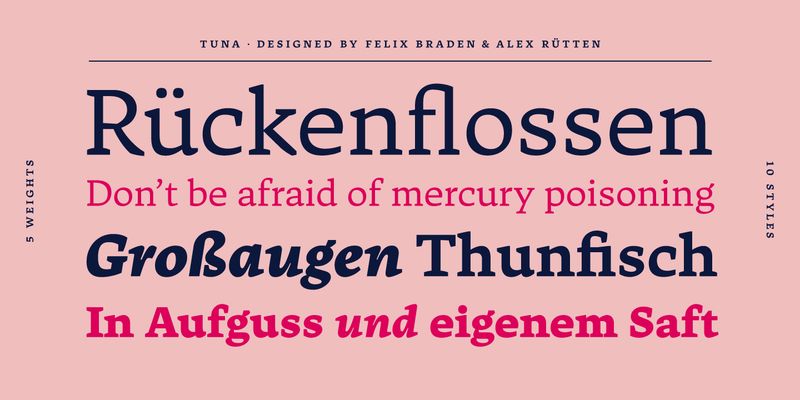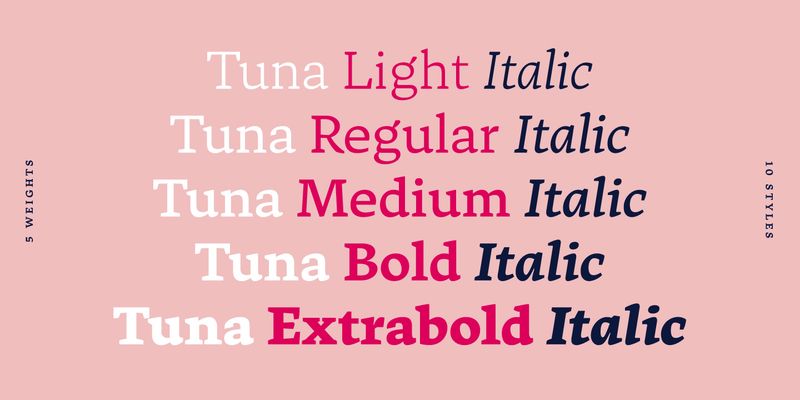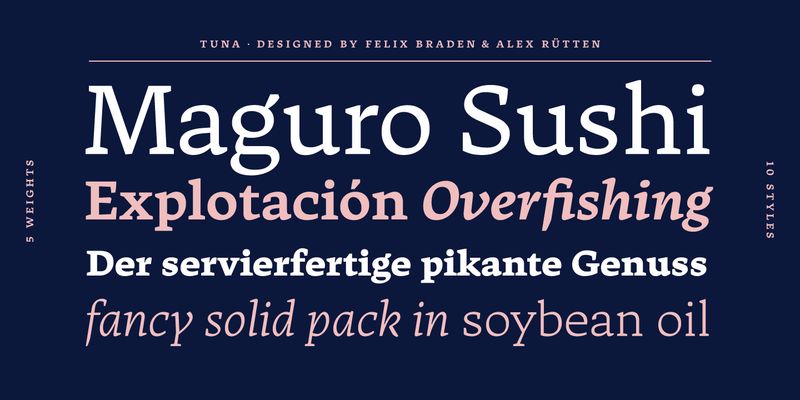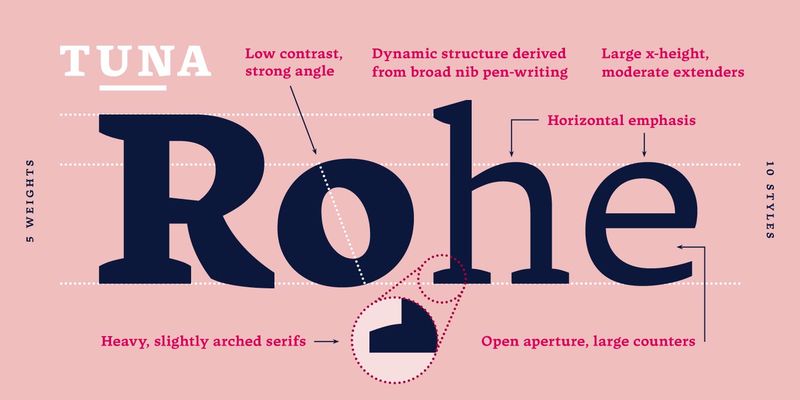
Tuna is simply a contemporary body text font. It is contemporary, meaning the merge of charming broad-nibbed calligraphic style with optimized legibility on screen – showing that the roots of writing and typesetting are still in charge when reading “Anna Karenina” on a Kindle till 4 o’clock in the morning. Tuna is bubbling, strong, but very accurate. Created with much fine tuning and precision. It has origin broad nib taste and is smooth like butter while reading.